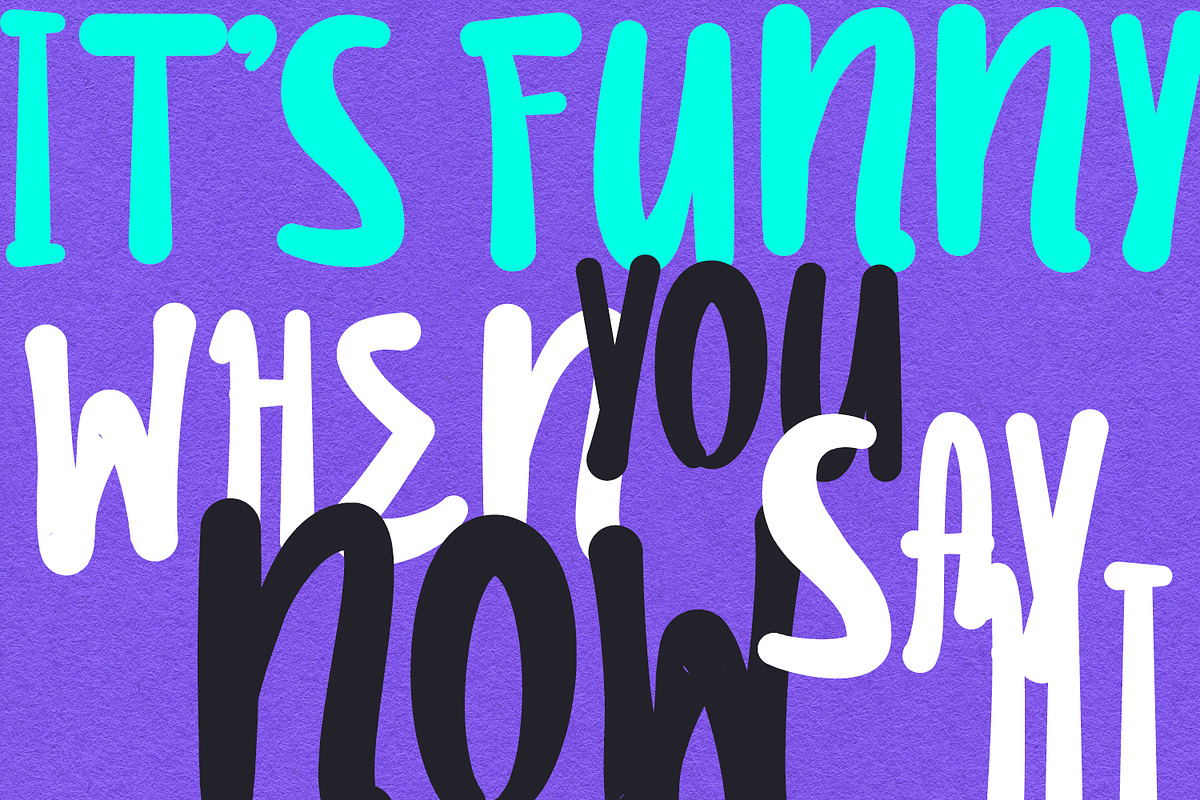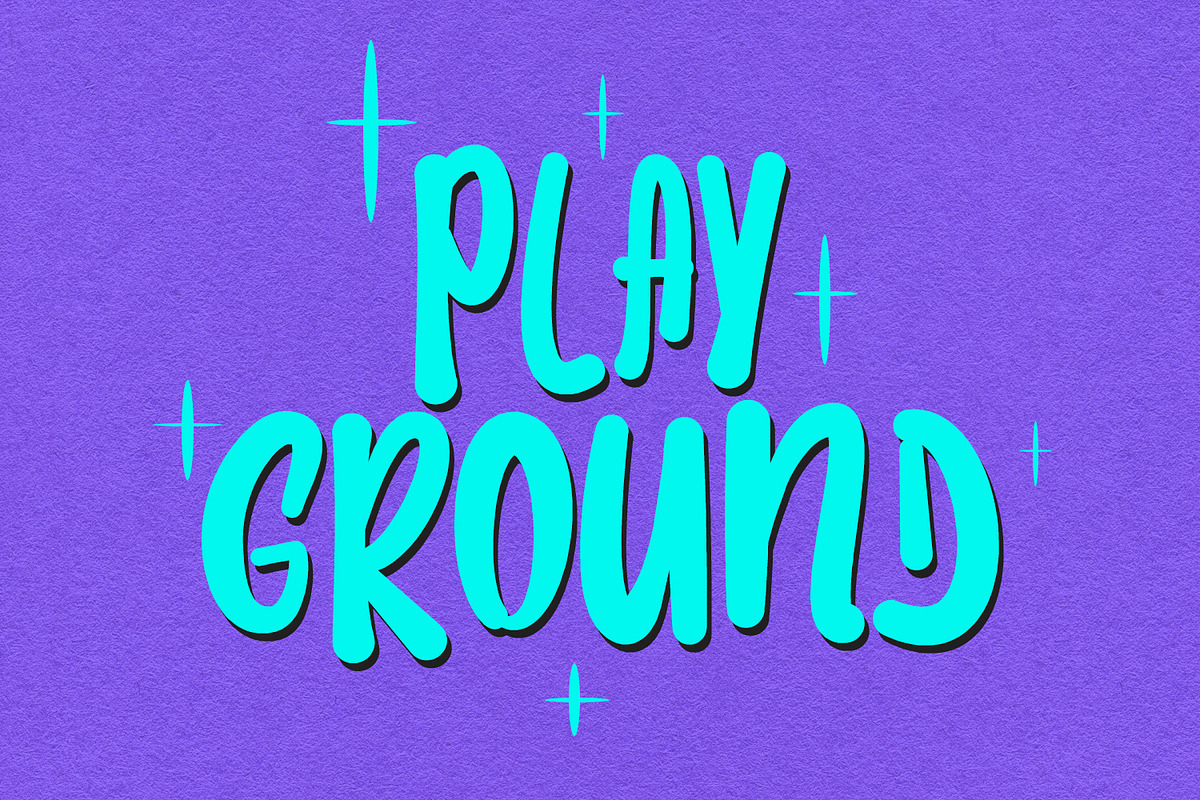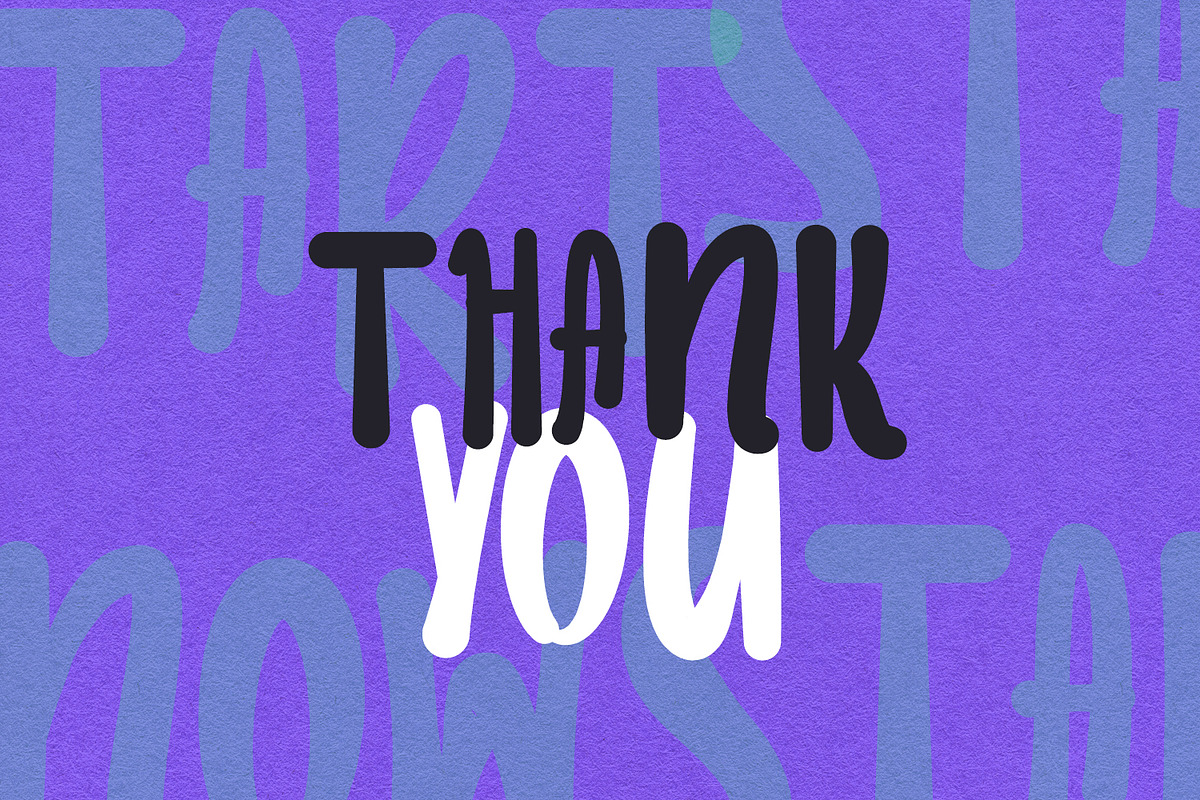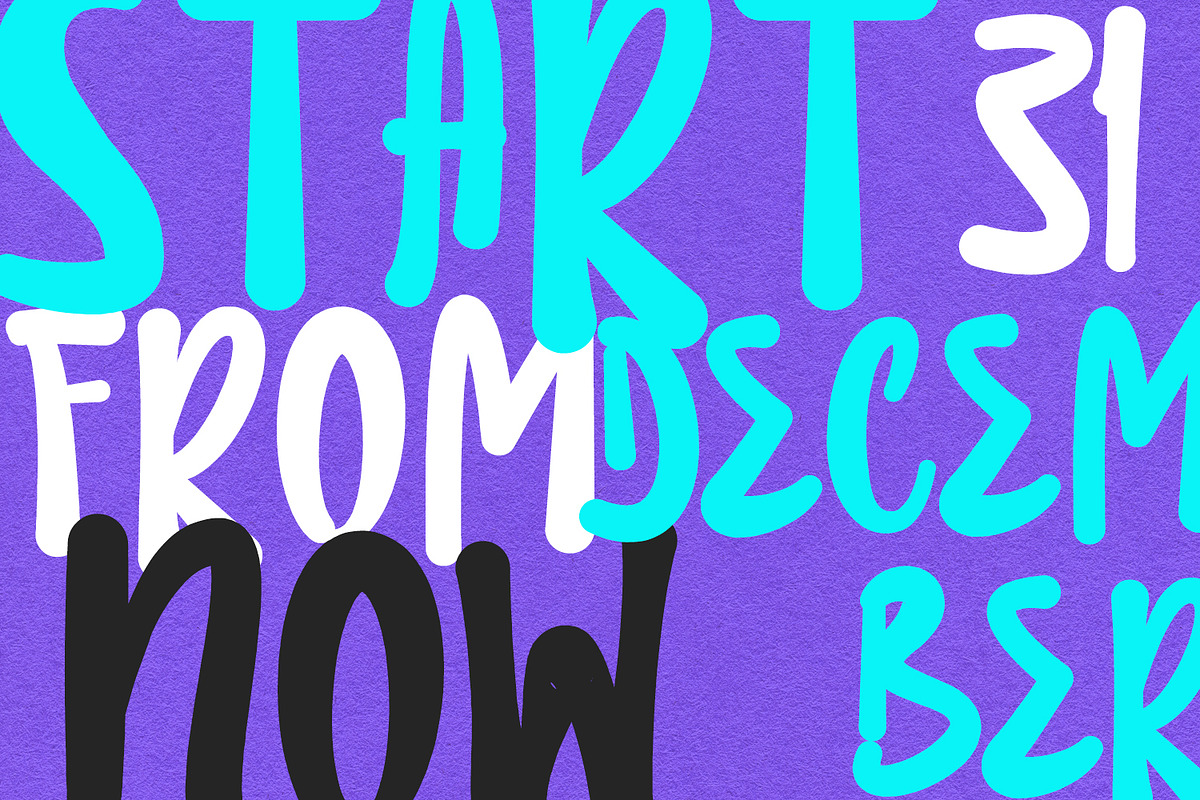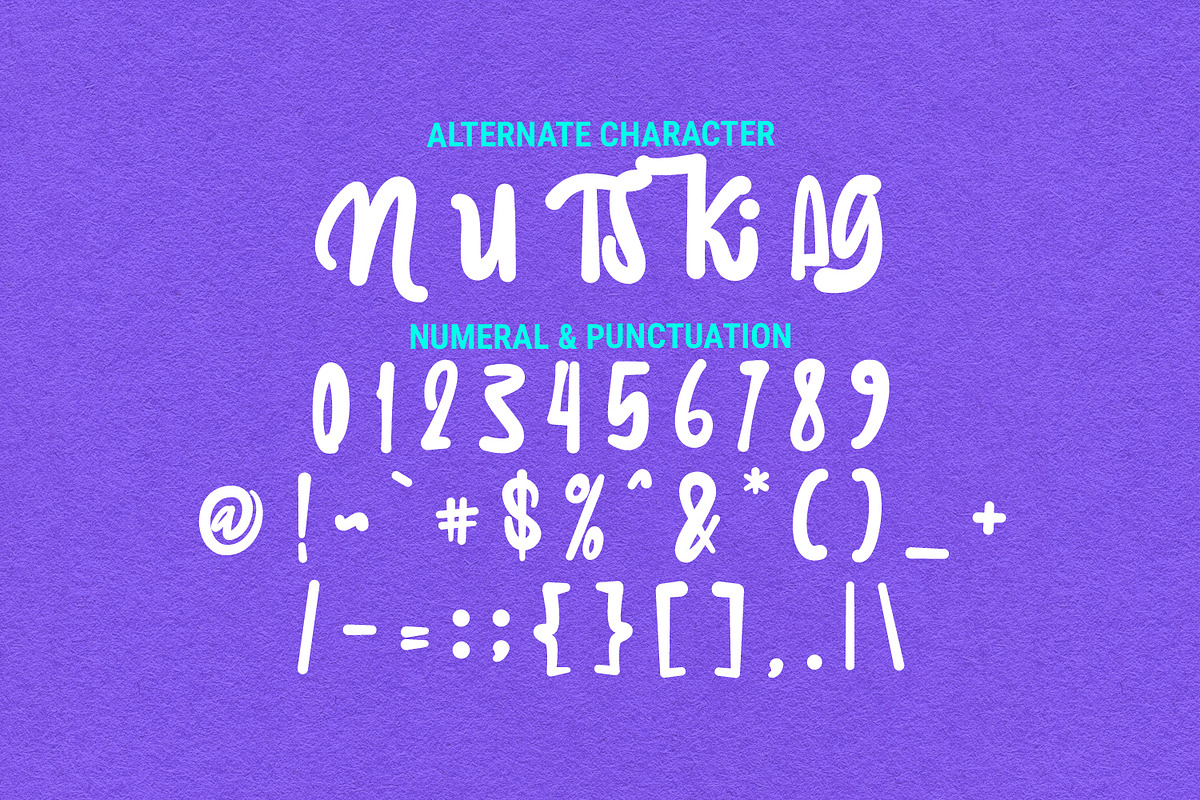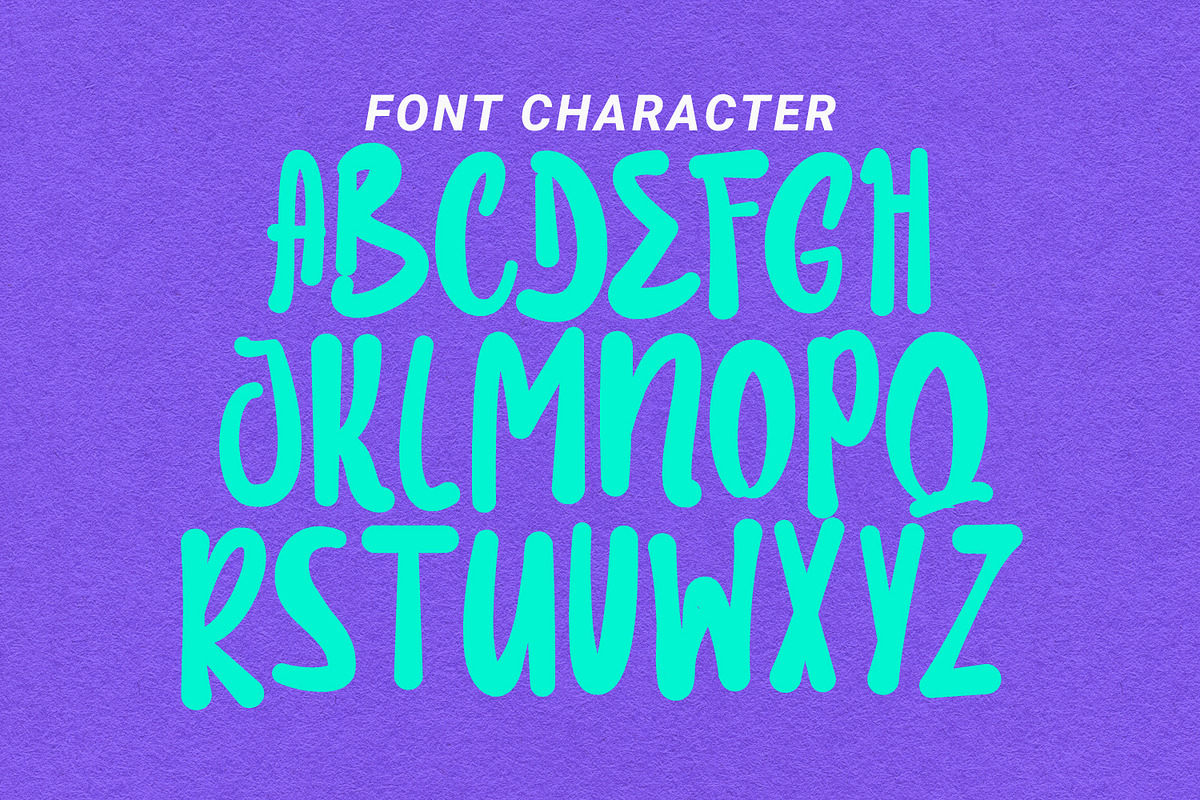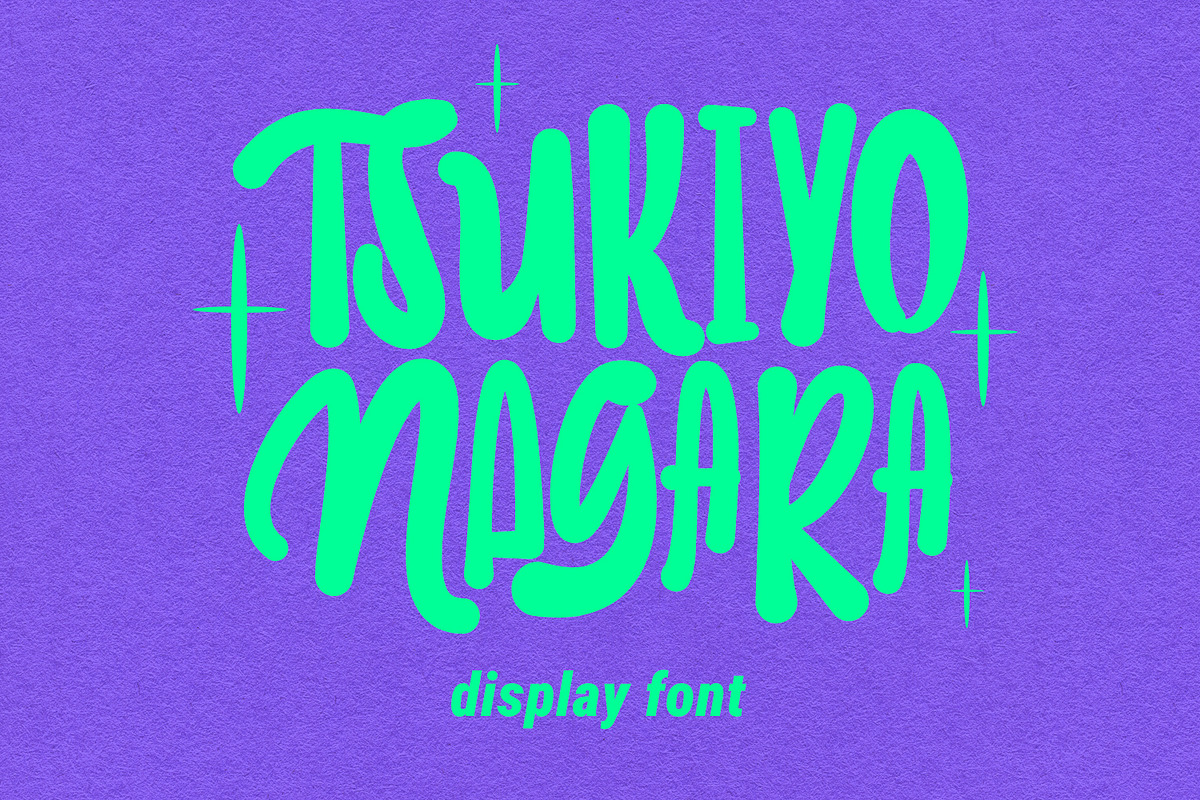
Tsukiyo Nagara Display Font
Tsukiyo Nagara handmade brush display font, fun character with alternates and ligatures. To give you an extra creative work. Tsukiyo Nagara handmade brush display font support multilingual language.